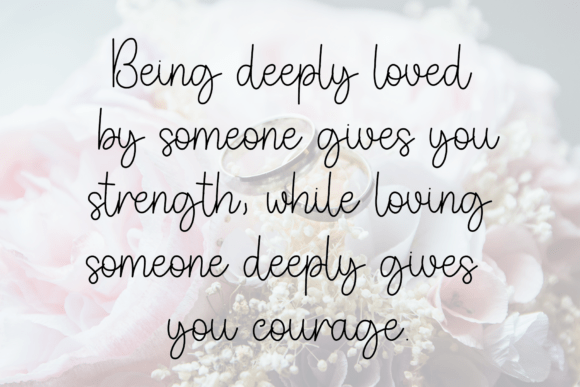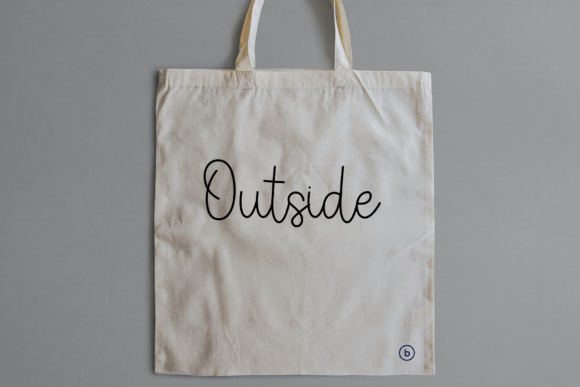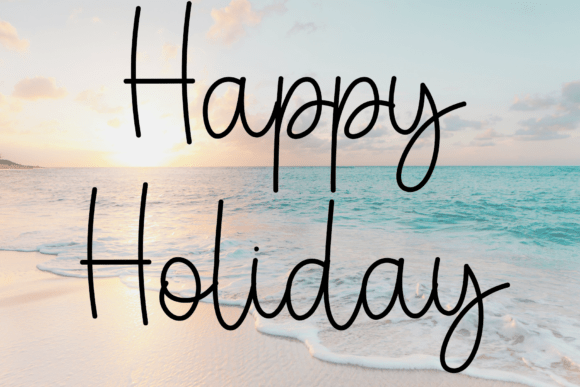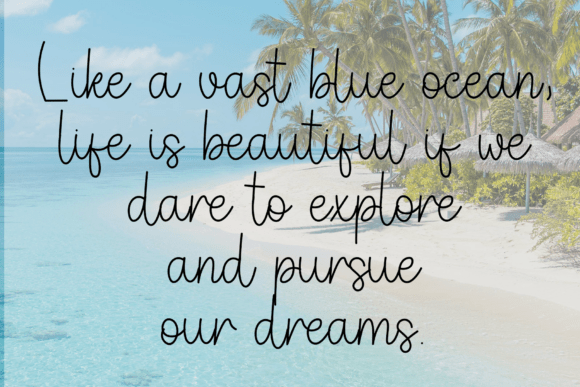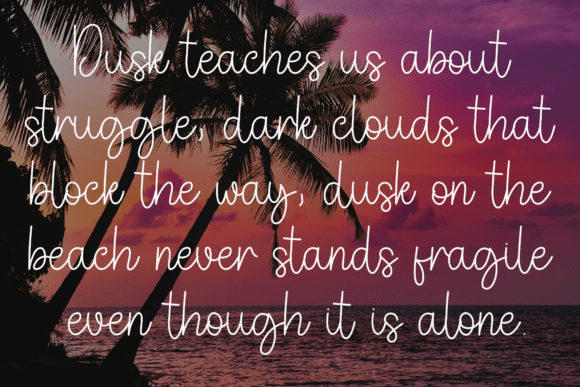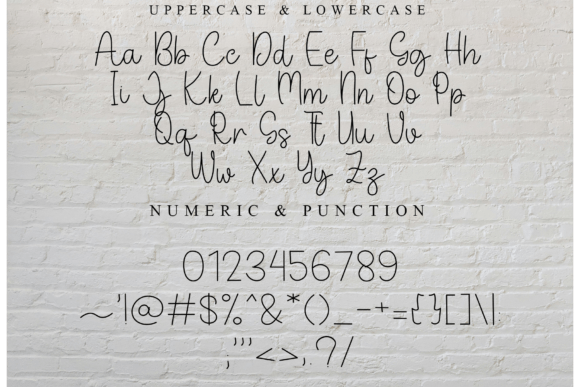
Discover the Charm of Alone Font: A Casual and Creative Companion for Designers
In the vast world of typography, few fonts manage to convey a sense of warmth and friendliness as effectively as the Alone Font. This charming, hand-drawn typeface has been making waves among designers and crafters alike, and for good reason. Its unique blend of playfulness and approachability makes it an ideal choice for a wide range of projects, from personal endeavors to professional undertakings.
The Characteristics of Alone Font
So, what sets the Alone Font apart from other typefaces? For starters, its round, playful strokes are instantly eye-catching. These strokes create a relaxed and casual feel that is perfect for designs that aim to convey a sense of friendliness and approachability. Whether you’re working on a social media graphic, an invitation, or a personal project, the Alone Font is sure to add a touch of warmth and personality to your work.
Another notable feature of the Alone Font is its charming, hand-drawn aesthetic. This aesthetic adds a fun and unique touch to any design, making it stand out from more generic and formal typefaces. The font’s casual vibe is reminiscent of handwritten notes and personal letters, making it perfect for designs that aim to convey a sense of intimacy and connection.
Technical Specifications and Compatibility
So, who is the Alone Font perfect for? In short, it’s ideal for designers and crafters who want to add a personal touch to their work. Whether you’re a seasoned professional or a hobbyist, this font is sure to inspire your creativity and help you produce unique and engaging designs.
For social media enthusiasts, the Alone Font is a great choice for creating eye-catching graphics and posts. Its playful and approachable vibe is sure to resonate with your audience, and help you build a strong brand identity.
For crafters, the Alone Font is perfect for creating handmade cards, invitations, and other paper crafts. Its charming, hand-drawn aesthetic is sure to add a touch of personality to your creations, and make them stand out from the crowd.
Tips for Using the Alone Font
So, how can you get the most out of the Alone Font? Here are a few tips to keep in mind:
- Experiment with different sizes and colors to find the perfect combination for your design.
- Pair the Alone Font with other fonts to create a unique and visually appealing contrast.
- Don’t be afraid to get creative and add your own personal touches to your designs.
In conclusion, the Alone Font is a versatile and charming typeface that is perfect for designers and crafters alike. Its unique blend of playfulness and approachability makes it an ideal choice for a wide range of projects, from personal endeavors to professional undertakings.